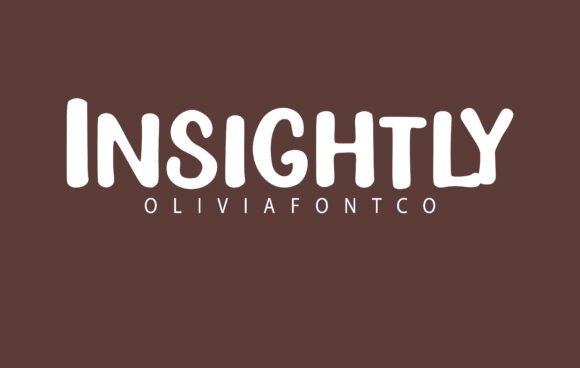
Insightly Font: The Ultimate Guide to this Romantic Handwritten Font
Are you looking for a font that can add a touch of romance and elegance to your creative projects? Look no further than the Insightly font. This authentic handwritten font is expertly designed to be a true favorite among designers and crafty individuals alike. In this comprehensive guide, we’ll take a closer look at the Insightly font, its features, and how you can use it to take your creative ideas to the highest level.
What is Insightly Font?
Insightly font is a beautifully crafted handwritten font that exudes a romantic touch. It’s designed to be legible and versatile, making it perfect for a wide range of creative projects. Whether you’re looking to create stunning magazine headlines, social media graphics, branding materials, wedding invitations, or cards, the Insightly font is an excellent choice.
Key Features of Insightly Font
The Insightly font comes with several key features that make it stand out from other fonts. Some of its notable features include:
- Authentic Handwritten Style: The Insightly font is designed to mimic the look of handwritten text, giving it a personal and unique touch.
- Romantic Touch: The font’s romantic touch makes it perfect for projects that require a touch of elegance and sophistication.
- Legibility: The Insightly font is designed to be highly legible, making it suitable for use as both title and body text.
- Versatility: The font’s versatility makes it perfect for a wide range of creative projects, from magazine headlines to social media graphics.
Uses of Insightly Font
The Insightly font is an incredibly versatile font that can be used for a wide range of creative projects. Here are some of the many uses of the Insightly font:
- Magazine Headlines: The Insightly font is perfect for creating stunning magazine headlines that grab attention.
- Social Media Graphics: Use the Insightly font to create engaging social media graphics that stand out from the crowd.
- Branding: The Insightly font is an excellent choice for branding materials, such as logos, business cards, and letterheads.
- Wedding Invitations: The font’s romantic touch makes it perfect for wedding invitations, save-the-date cards, and other wedding-related materials.
- Cards: Use the Insightly font to create beautiful greeting cards, birthday cards, and other types of cards.
Benefits of Using Insightly Font
The Insightly font offers several benefits that make it an excellent choice for creative projects. Some of the benefits of using the Insightly font include:
- Elegance and Sophistication: The Insightly font adds a touch of elegance and sophistication to any creative project.
- Unique and Personal Touch: The font’s handwritten style gives it a unique and personal touch that sets it apart from other fonts.
- Improved Legibility: The Insightly font is designed to be highly legible, making it easy to read and understand.
- Versatility: The font’s versatility makes it perfect for a wide range of creative projects.
Tips for Using Insightly Font
Here are some tips for using the Insightly font effectively:
- Use it for Titles and Headlines: The Insightly font is perfect for titles and headlines, where its elegant and sophisticated look can shine.
- Pair it with Other Fonts: Experiment with pairing the Insightly font with other fonts to create a unique and visually appealing combination.
- Use it for Body Text: The Insightly font is also suitable for use as body text, where its legibility and readability make it an excellent choice.
- Experiment with Colors and Textures: Don’t be afraid to experiment with different colors and textures to add depth and interest to your creative projects.
In conclusion, the Insightly font is a beautifully crafted handwritten font that offers a romantic touch and a range of benefits. Its elegance, sophistication, and versatility make it perfect for a wide range of creative projects, from magazine headlines to social media graphics, branding materials, wedding invitations, and cards. By following the tips outlined in this guide, you can use the Insightly font to take your creative ideas to the highest level.
Here are some frequently asked questions about the Insightly font:
- What is the Insightly font?: The Insightly font is a beautifully crafted handwritten font with a romantic touch.
- Is the Insightly font legible?: Yes, the Insightly font is designed to be highly legible and suitable for use as both title and body text.
- What are some uses of the Insightly font?: The Insightly font can be used for magazine headlines, social media graphics, branding materials, wedding invitations, cards, and more.